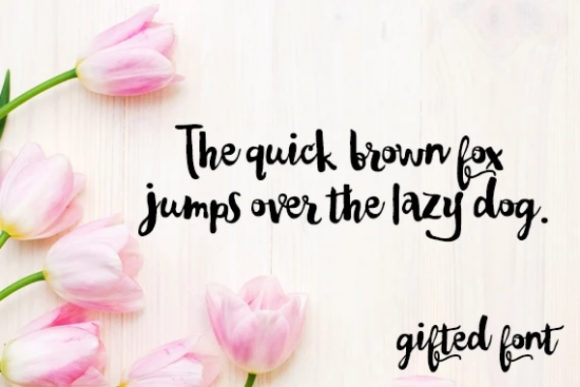
Introducing Gifted Font: The Sweet and Soft Hand-Lettered Font for Your Creative Projects
Are you looking for a font that can add a touch of elegance and whimsy to your designs? Look no further than Gifted Font, a sweet and soft hand-lettered handwritten font that’s perfect for creating beautiful wedding invitations, stationary art, social media posts, and greeting cards.
What Makes Gifted Font So Special?
Gifted Font is a unique and authentic font that’s been carefully crafted to give your designs a personal and handmade feel. Its soft and delicate strokes, combined with its elegant letterforms, make it perfect for a wide range of creative projects. Whether you’re a designer, crafter, or DIY enthusiast, Gifted Font is sure to inspire you to create something truly special.
Authentic Feel and Versatility
One of the things that sets Gifted Font apart is its authentic feel. Unlike other fonts that can look stiff or robotic, Gifted Font has a warm and inviting quality that’s reminiscent of hand-lettered calligraphy. This makes it perfect for creating designs that need to feel personal and heartfelt, such as wedding invitations, birthday cards, and thank-you notes.
But Gifted Font isn’t just limited to traditional paper crafts. Its versatility makes it perfect for a wide range of digital applications, from social media posts and blog graphics to email newsletters and website headers. And with its easy-to-read letterforms, it’s also a great choice for body text and captions.
Use Gifted Font for Your Wedding Invitations and Stationery
If you’re planning a wedding or anniversary celebration, Gifted Font is the perfect choice for your invitations and stationery. Its elegant and sophisticated letterforms will add a touch of romance and whimsy to your designs, making them truly unforgettable. And with its easy-to-use format, you can quickly and easily create beautiful and professional-looking designs that reflect your personal style.
Create Eye-Catching Social Media Posts with Gifted Font
In today’s digital age, social media is an essential part of any marketing or branding strategy. And with Gifted Font, you can create eye-catching social media posts that will grab the attention of your followers and leave a lasting impression. Whether you’re promoting a new product, sharing a special offer, or simply connecting with your audience, Gifted Font is the perfect choice for your social media graphics.
Make Cute Greeting Cards and More with Gifted Font
Gifted Font is also perfect for creating cute and personalized greeting cards for any occasion. From birthday and holiday cards to get-well and congratulations messages, Gifted Font’s sweet and soft letterforms will add a touch of warmth and personality to your designs. And with its easy-to-use format, you can quickly and easily create professional-looking designs that will make your loved ones feel special.
Key Features of Gifted Font
- Sweet and soft hand-lettered handwritten font
- Authentic feel and elegant letterforms
- Perfect for wedding invitations, stationery, social media posts, and greeting cards
- Easy to use and versatile
- Great for both digital and print applications